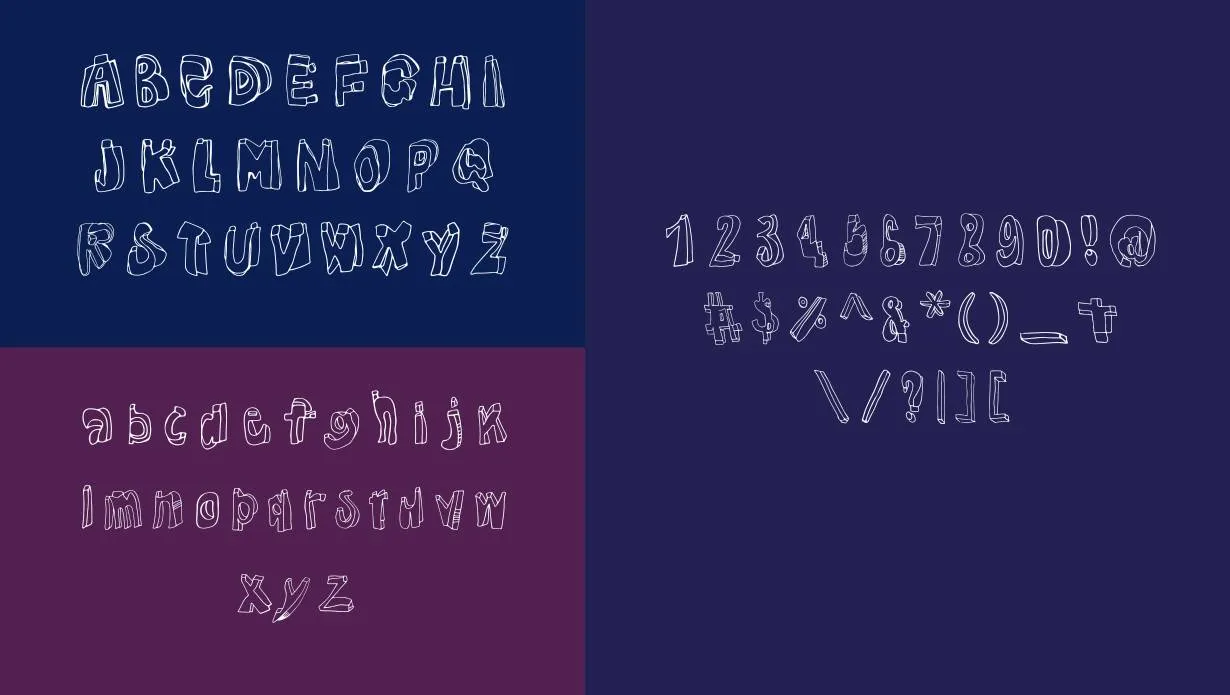
3D Font adds a new dimension to your words, bringing depth and visual interest to your writing. Perfect for projects where you want your words to pop off the page, this font creates a bold and dynamic impact.
It’s like giving your writing a touch of creativity and excitement, making your words stand out in a visually captivating way. With 3D Font, your words become a dynamic and eye-catching feature, turning any project into a visually stunning experience.
Style | Display |